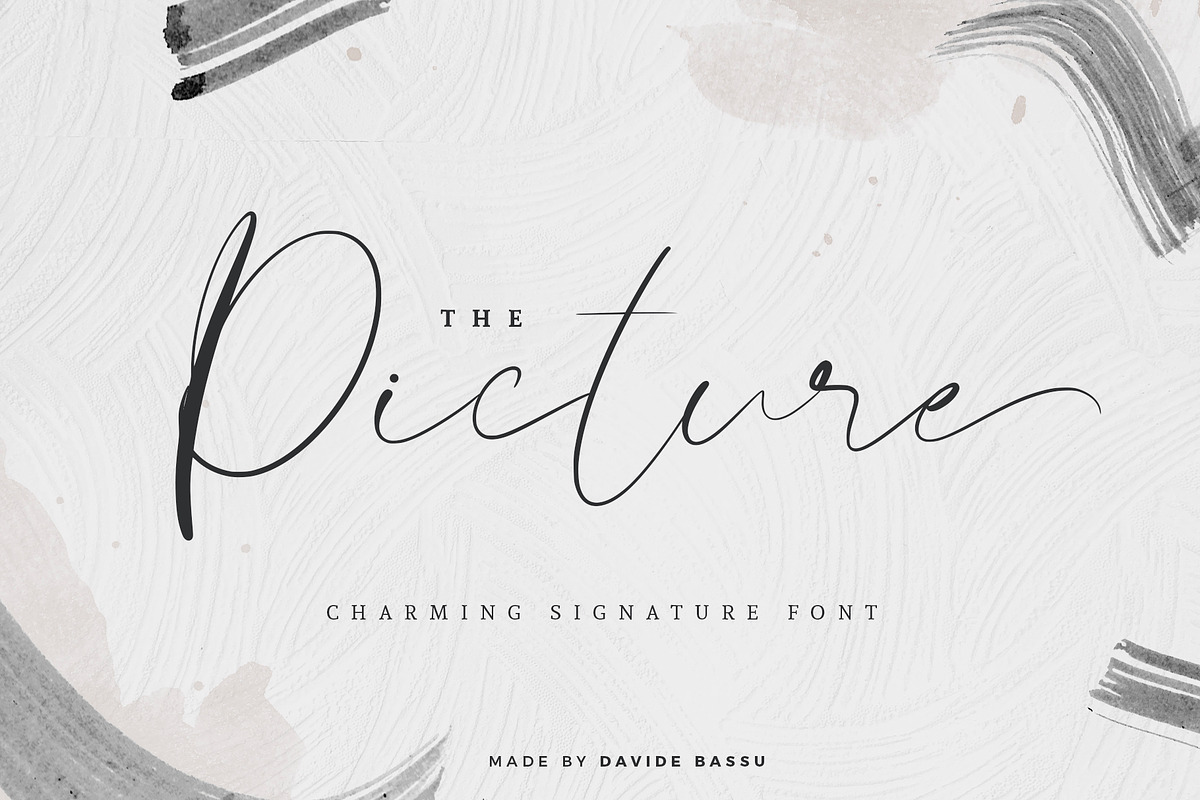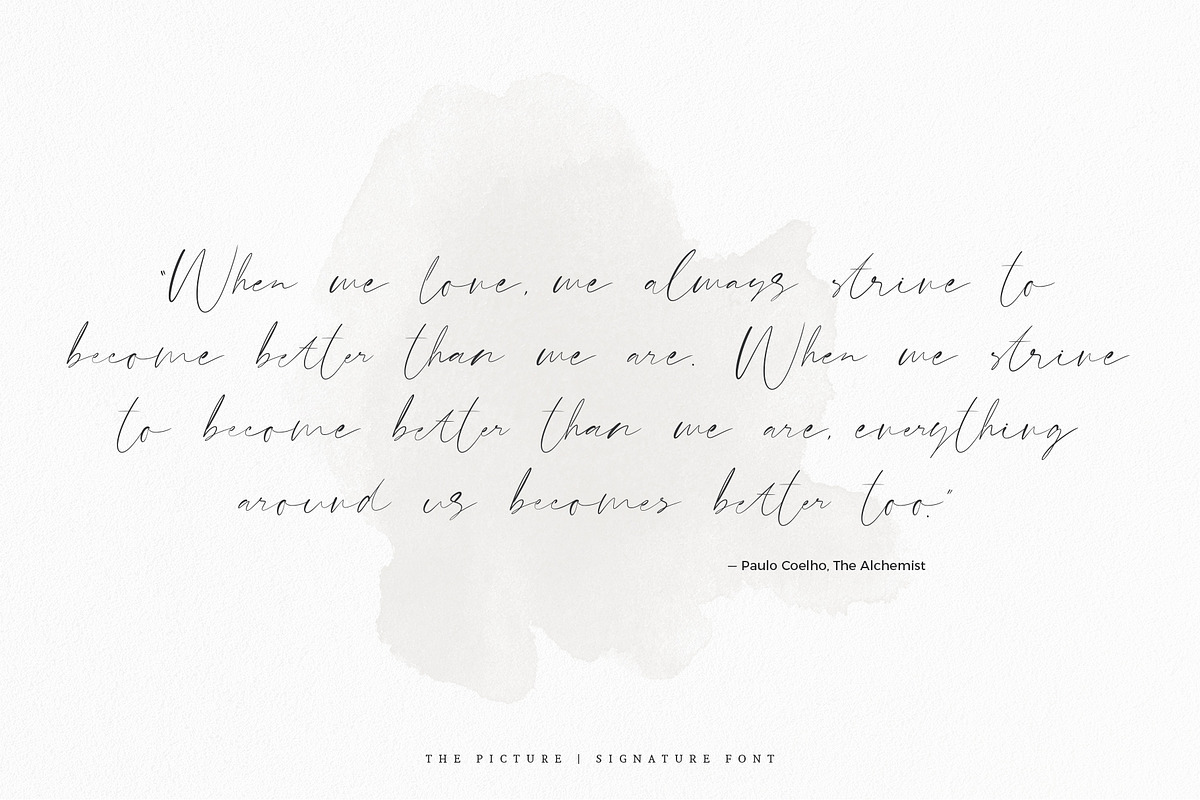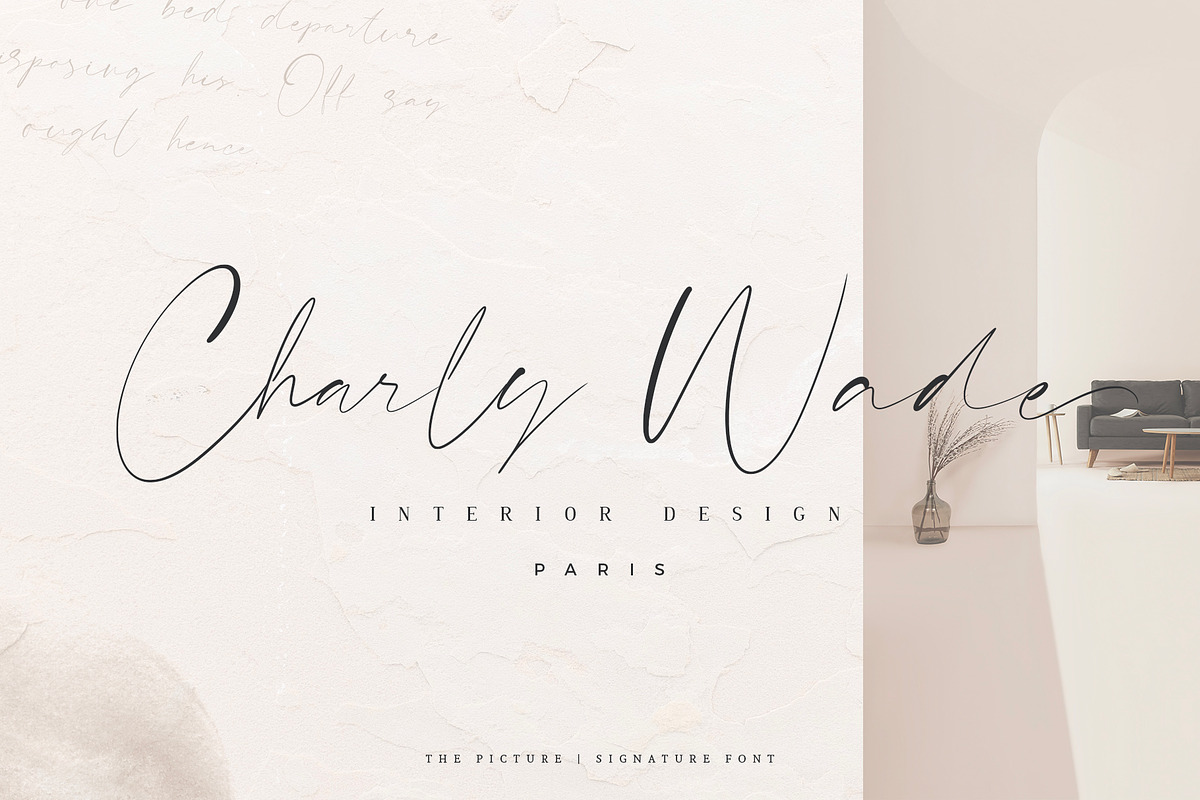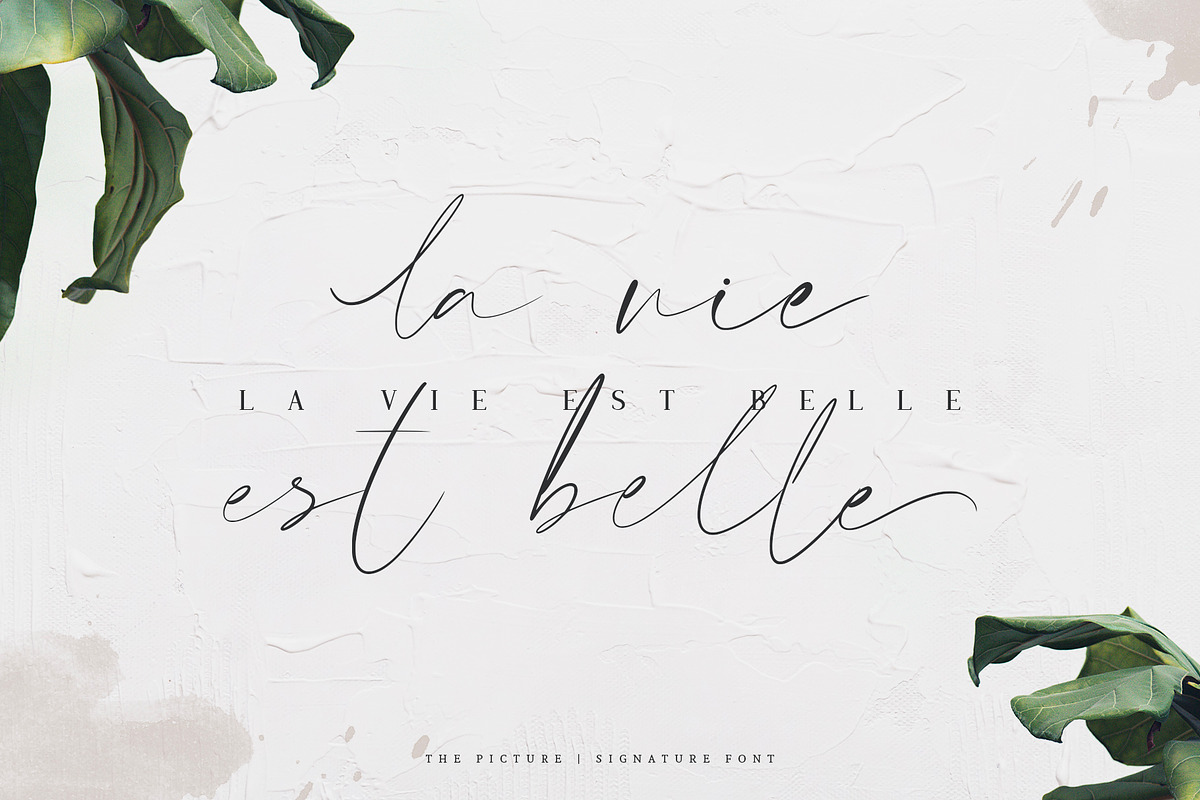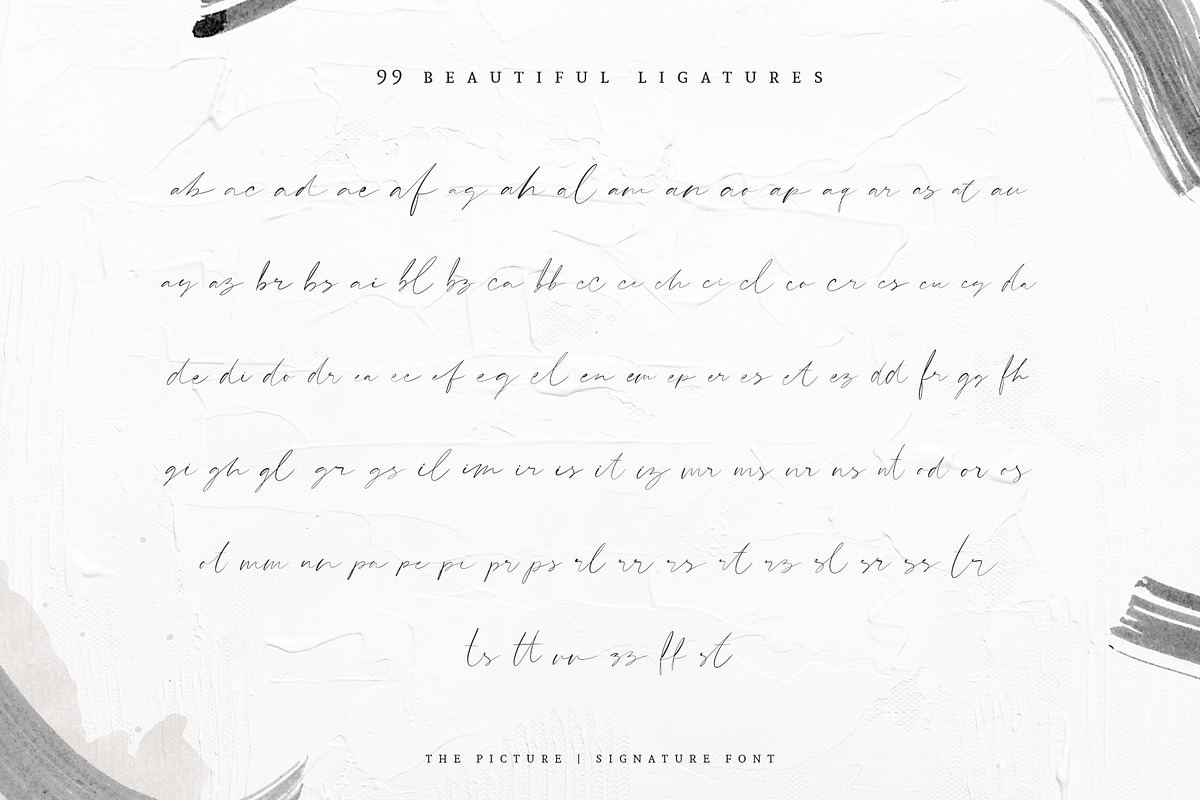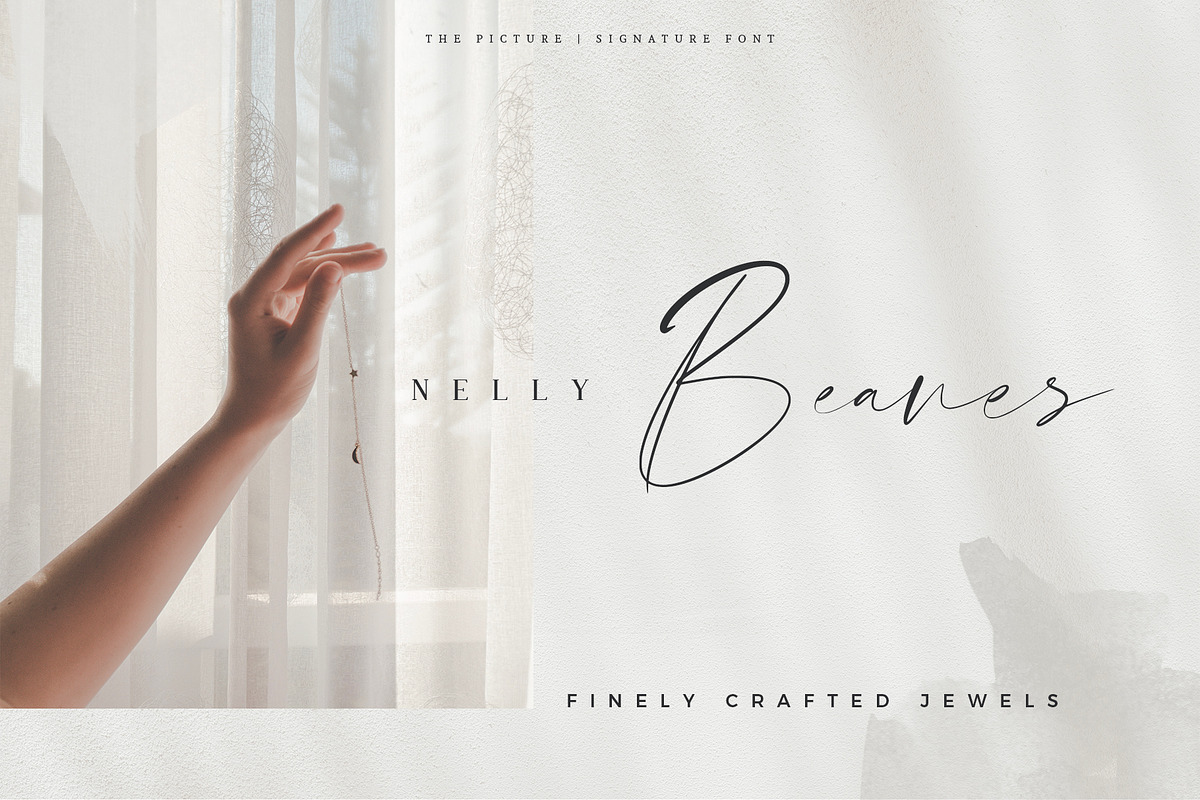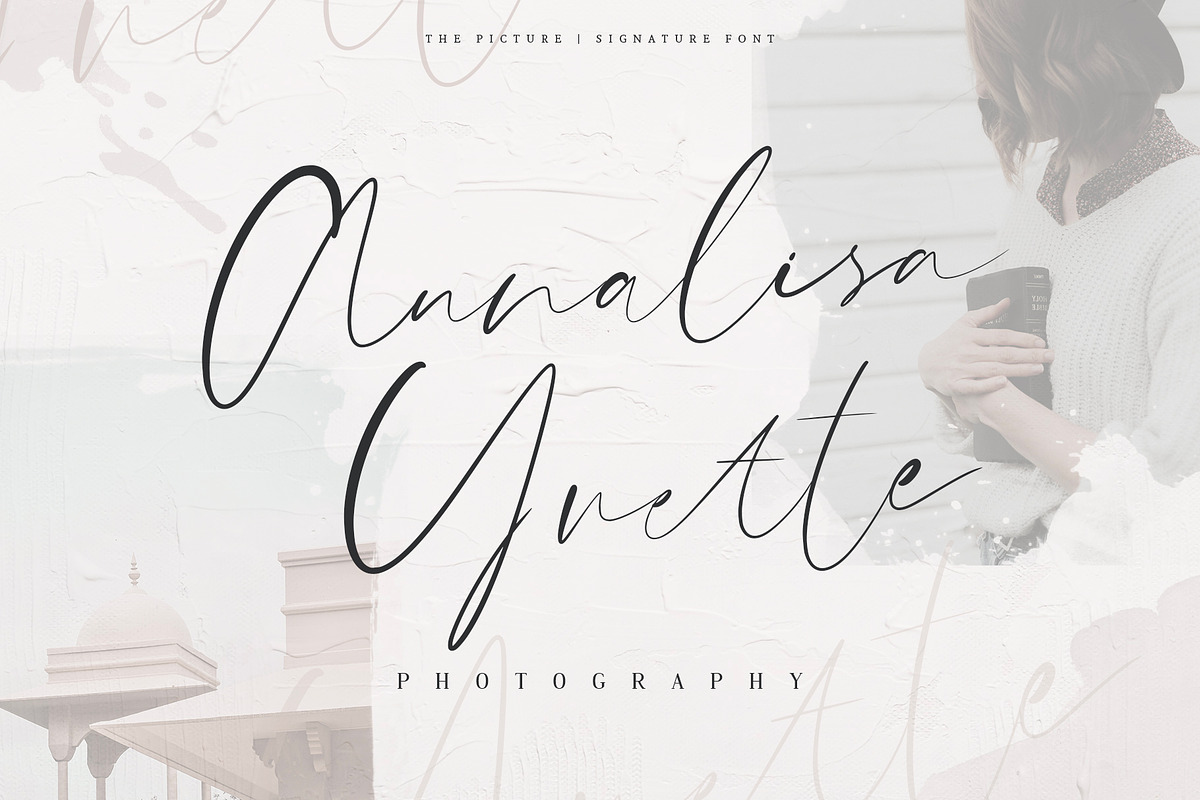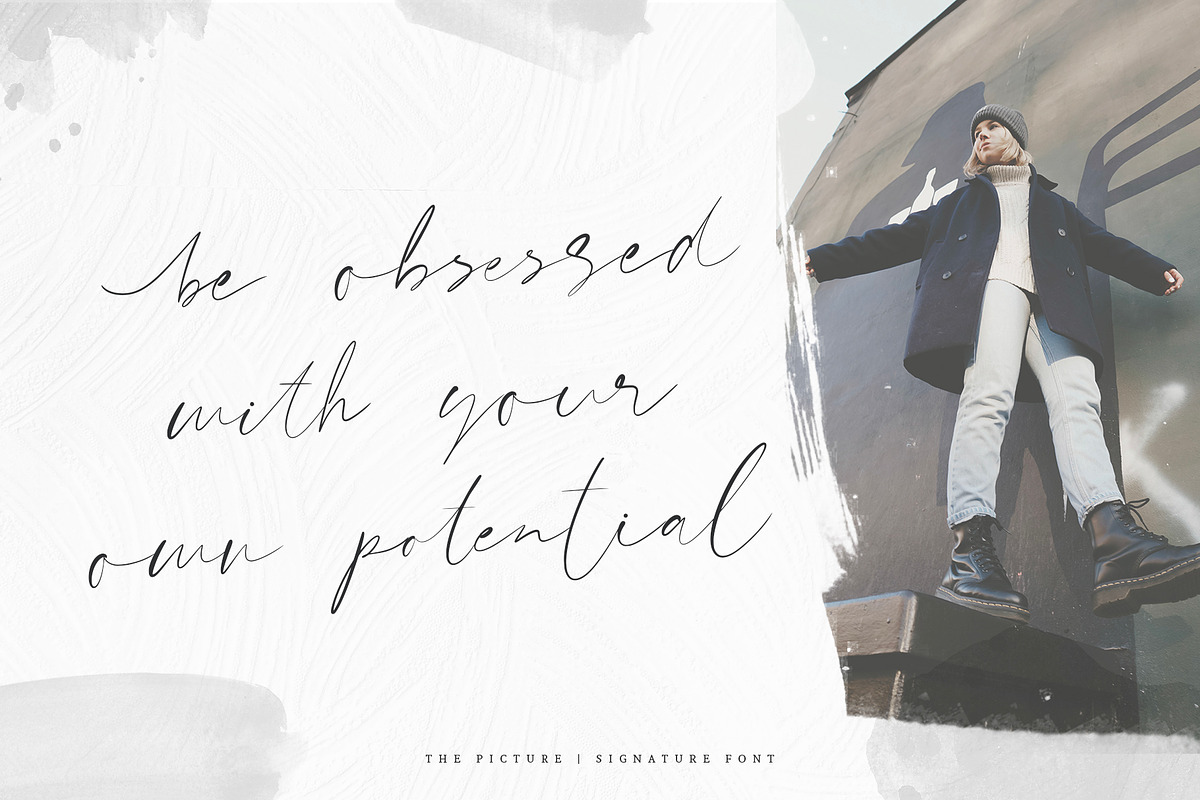
The Picture | Signature Font
The Picture - a brand new hand made signature font. This charming script has been finely crafted taking care of every detail, to make your next creative project stand out from the crowd. You can use it for Logo designs, branding, wedding materials, prints, social media designs and much more!
The Picture includes full set of uppercase and lowercase letters, numerals and a large range of punctuation. It comes with 99 gorgeous and unique ligatures, giving your design a realistic handlettered style.